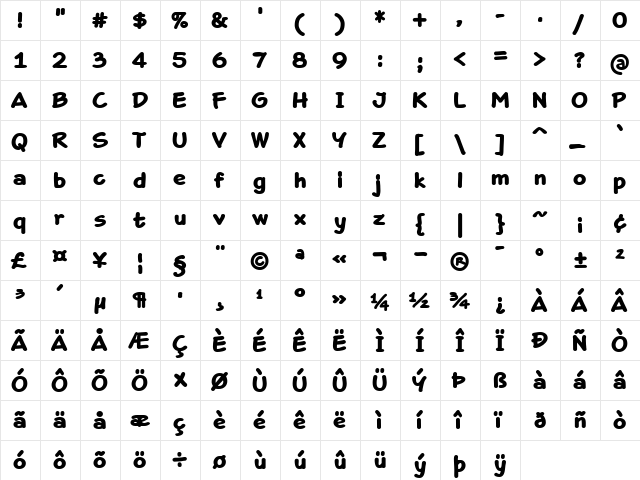
Draftsman Casual 6B Regular
Design Context for Draftsman Casual 6B Typeface
Draftsman Casual 6B is a composed and adaptable typeface that performs quietly and consistently across a wide range of design contexts.